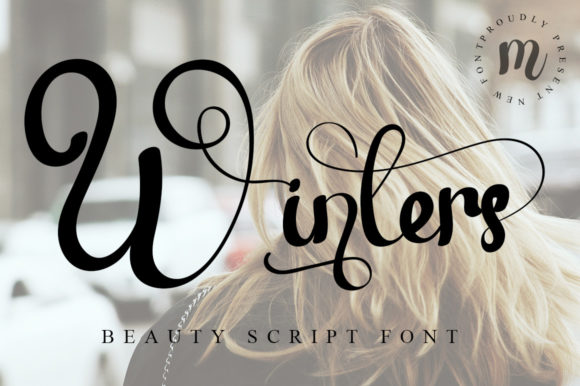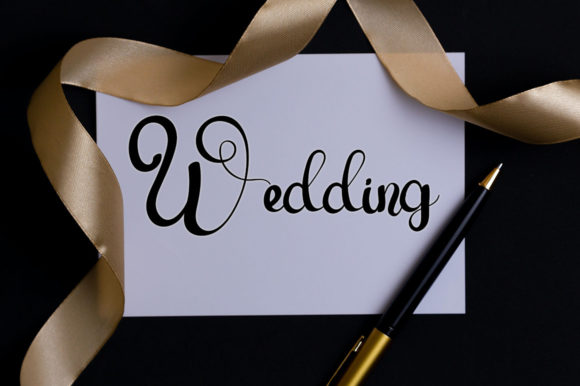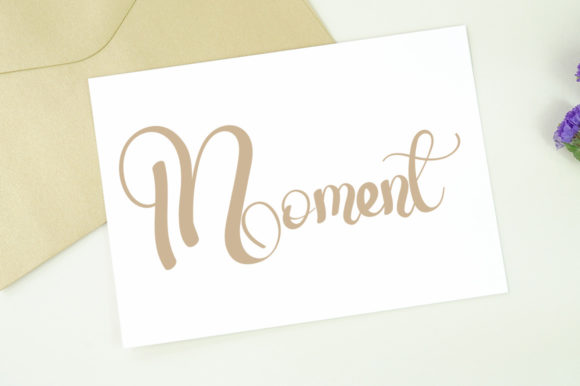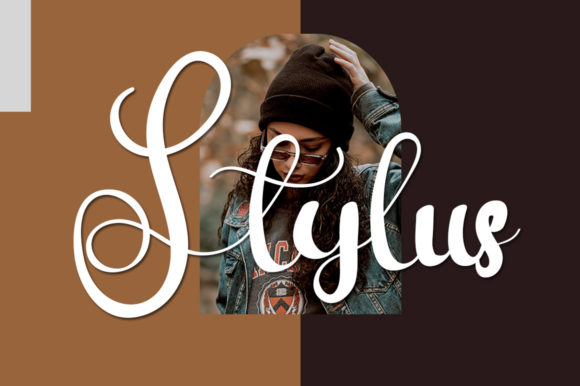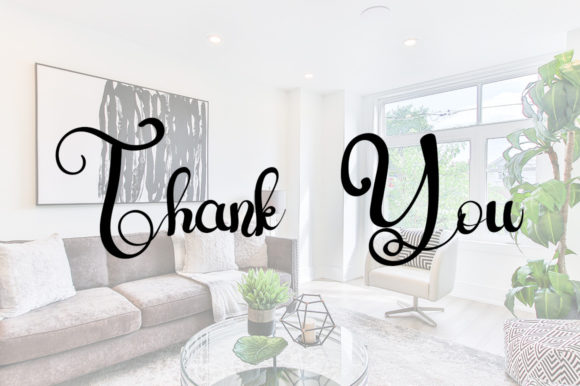
Winters Font
About Winters Font
“Winters” is introduced as a lovely and timeless handwritten font designed to infuse a unique and beautiful touch into every letter. The font’s distinctive qualities are aimed at breathing life into design projects, ensuring a stylish and captivating outcome. Noteworthy features, such as stylish alternates and ligatures, contribute to making “Winters” a versatile and attractive choice for various creative endeavors.
The term “handwritten” implies that the font captures the organic and personal nuances of hand-drawn lettering. This characteristic often adds warmth and authenticity to design work, making it particularly suitable for projects where a personal touch is desired.
The inclusion of stylish alternates and ligatures enhances the font’s visual appeal and versatility. Alternates provide designers with variations of specific characters, allowing for creative customization and aesthetic exploration. Ligatures, on the other hand, enable seamless and harmonious connections between specific letter combinations, contributing to the overall flow and elegance of the typography.
The use of the term “timeless” suggests that “Winters” is designed to withstand changing design trends, making it a reliable choice for projects that aim for enduring and classic aesthetics. Timeless fonts are often versatile and adaptable, suitable for a variety of applications across different design contexts.
The mention of PUA encoding ensures that users can access a comprehensive set of glyphs and ligatures with ease. PUA (Private Use Area) encoding allows for the inclusion of additional characters beyond the standard Unicode set, providing flexibility in accessing unique and specialized glyphs.
In summary, “Winters” presents itself as a versatile and timeless handwritten font, with unique touches in every letterform. Its stylish alternates and ligatures offer creative possibilities for designers, and the PUA encoding ensures convenient access to a range of glyphs. Whether applied to branding, packaging, or other design projects, “Winters” aims to bring a distinctive and enduring quality to the typographic landscape.